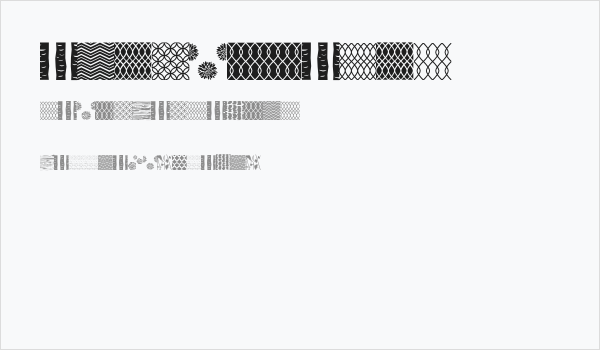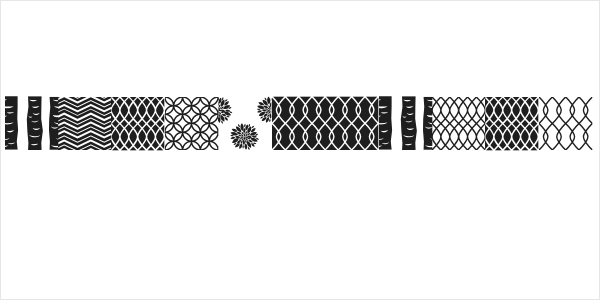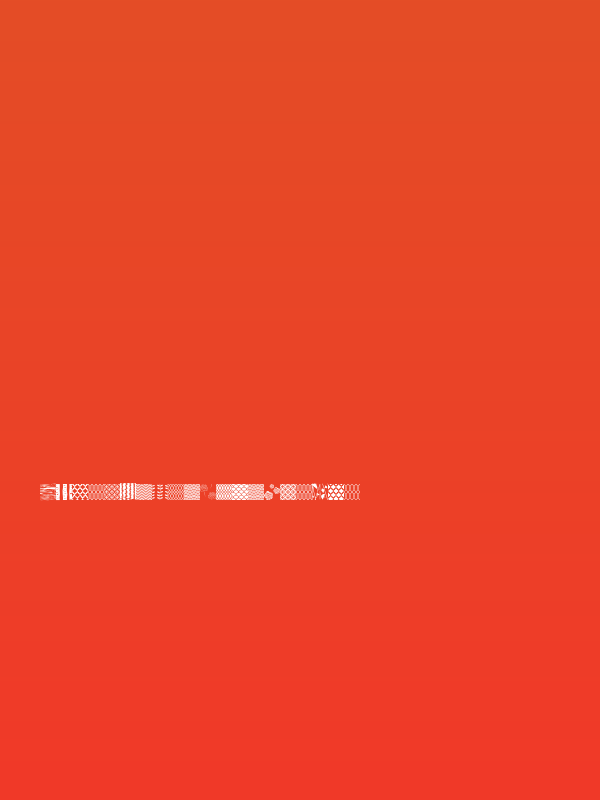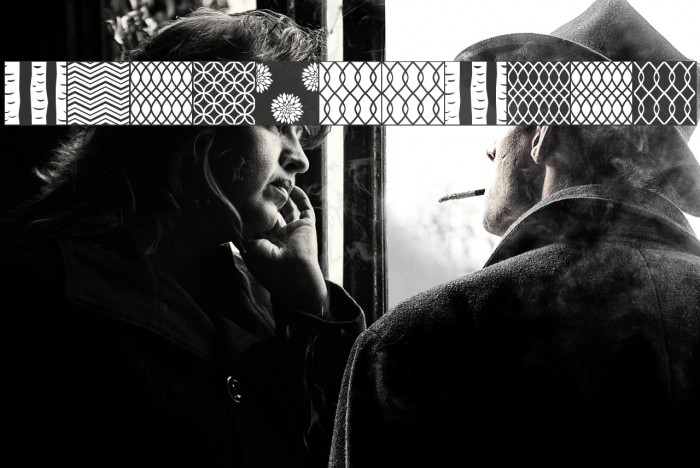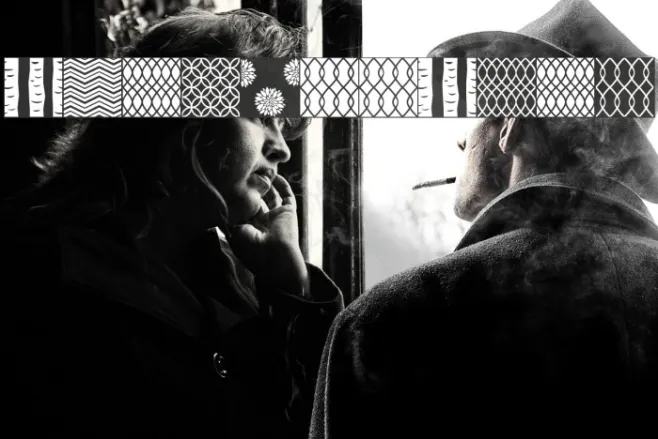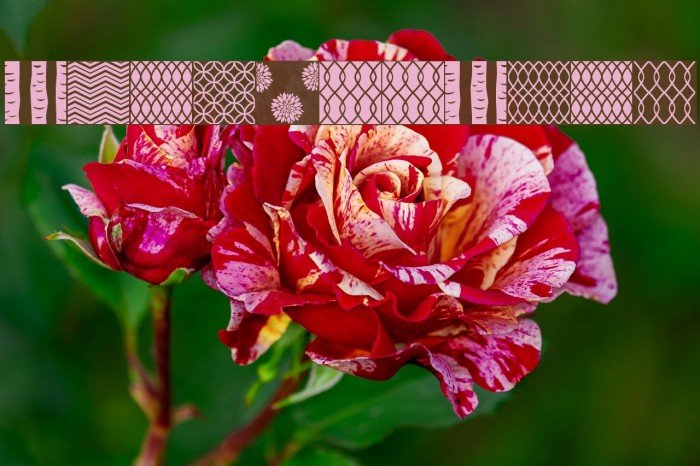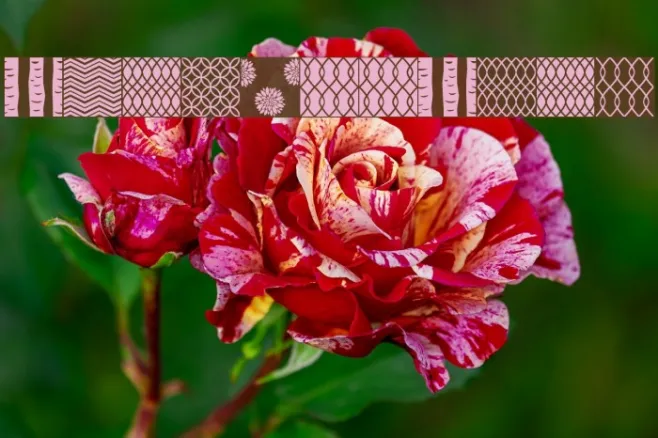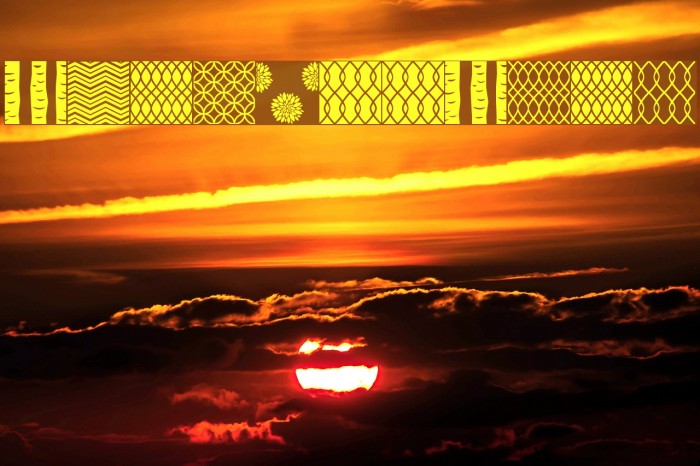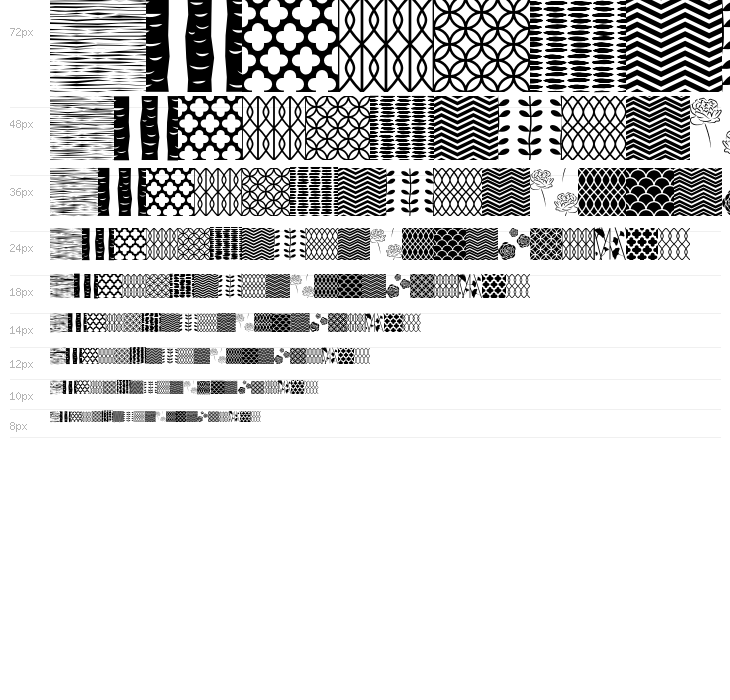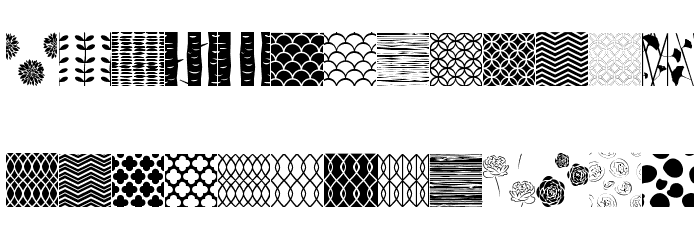
PeoniPatterns Font
A decorative collection of hand-drawn, high-contrast black and white patterns and floral motifs, featuring organic shapes, geometric grids, and stylized flowers. The designs are playful and artistic, with a handcrafted, irregular quality.
| Overall Style | Decorative, Hand-drawn, Artistic |
| Use Case | Logos, Decorative elements, Backgrounds, Crafts |
| Proposed Projects | Surface pattern design, scrapbooking, invitations, textile prints, branding, packaging, digital backgrounds. |